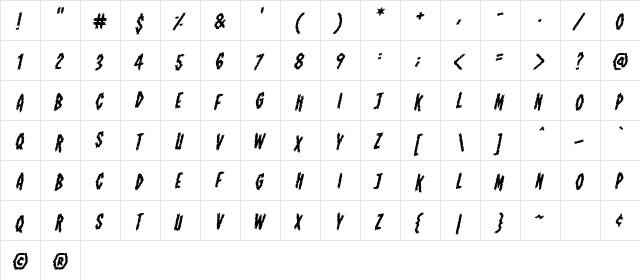
ShallowGrave BB Italic
Italic · Nate Piekos. Blambot.com Nate Piekos ·
DesignerNate Piekos
Design Context for ShallowGrave BB Typeface
ShallowGrave BB is a composed and adaptable typeface that performs quietly and consistently across a wide range of design contexts. The slanted form adds forward momentum and visual energy.
Pro Tip: Try ShallowGrave BB for annotation and caption copy alongside an upright companion — the contrast in angle creates a dynamic but ordered typographic system.